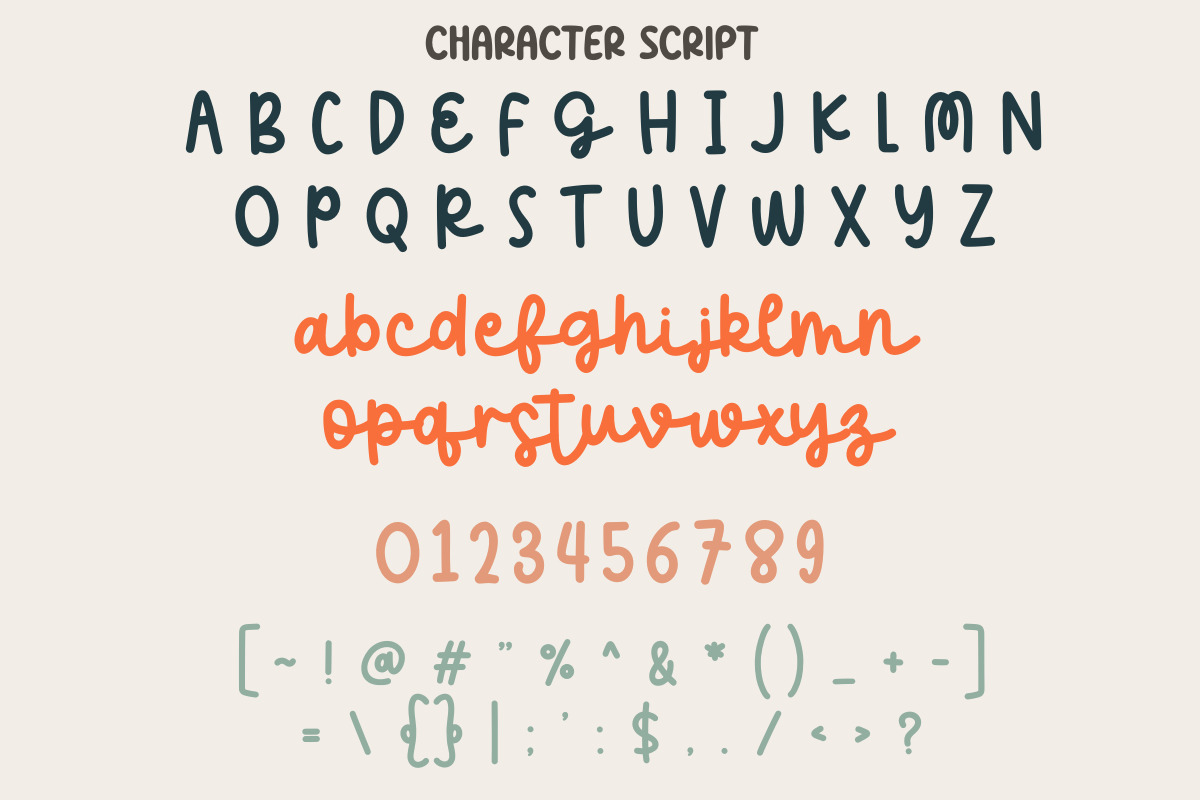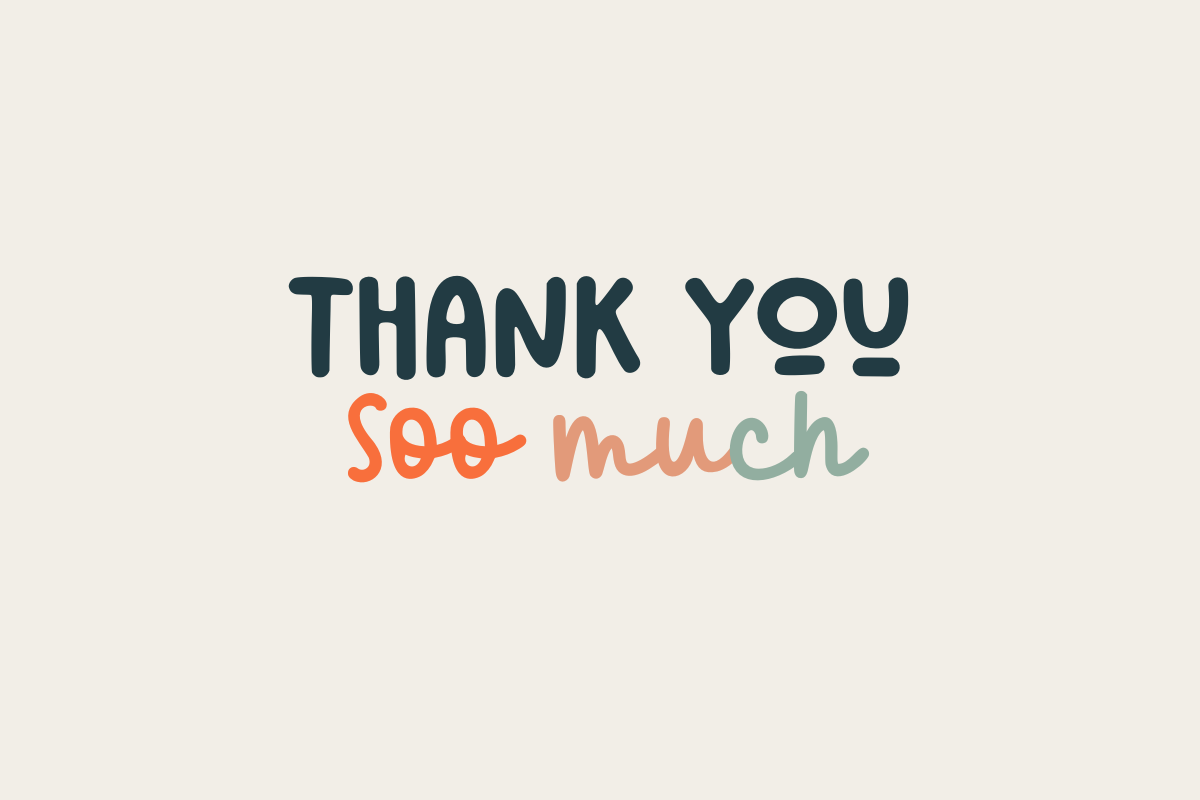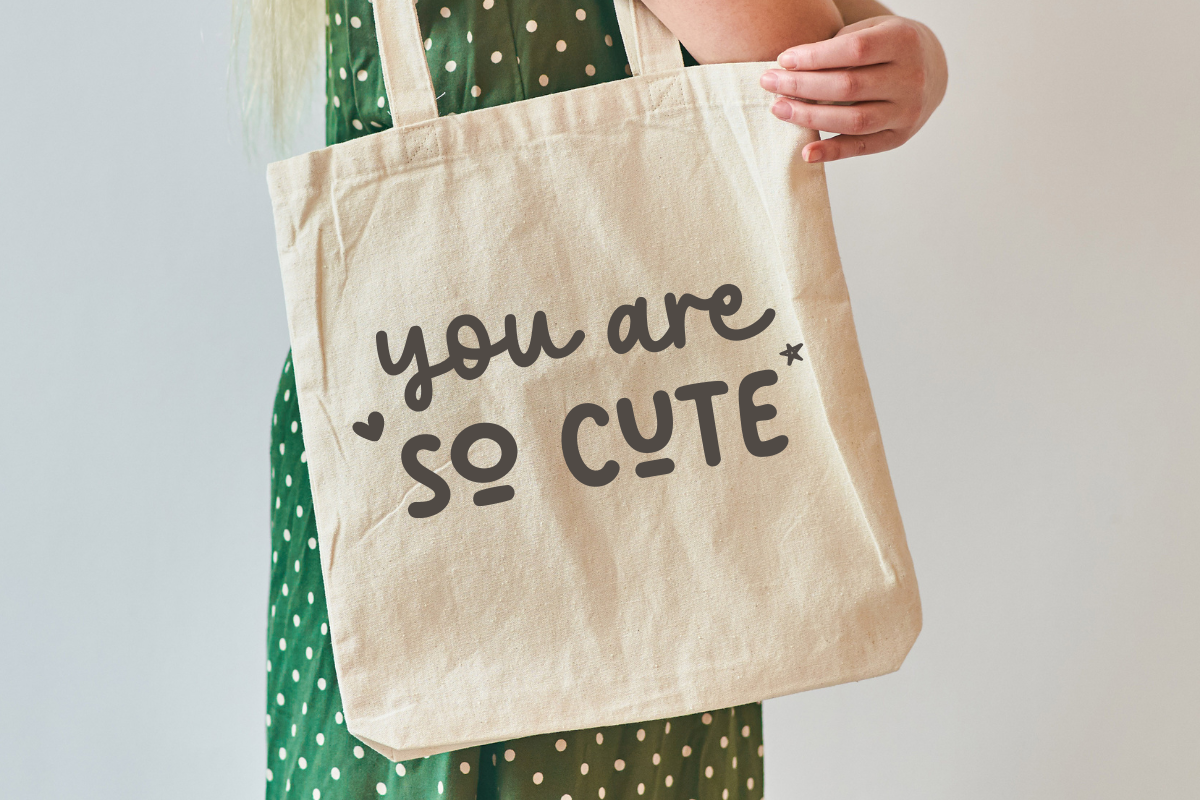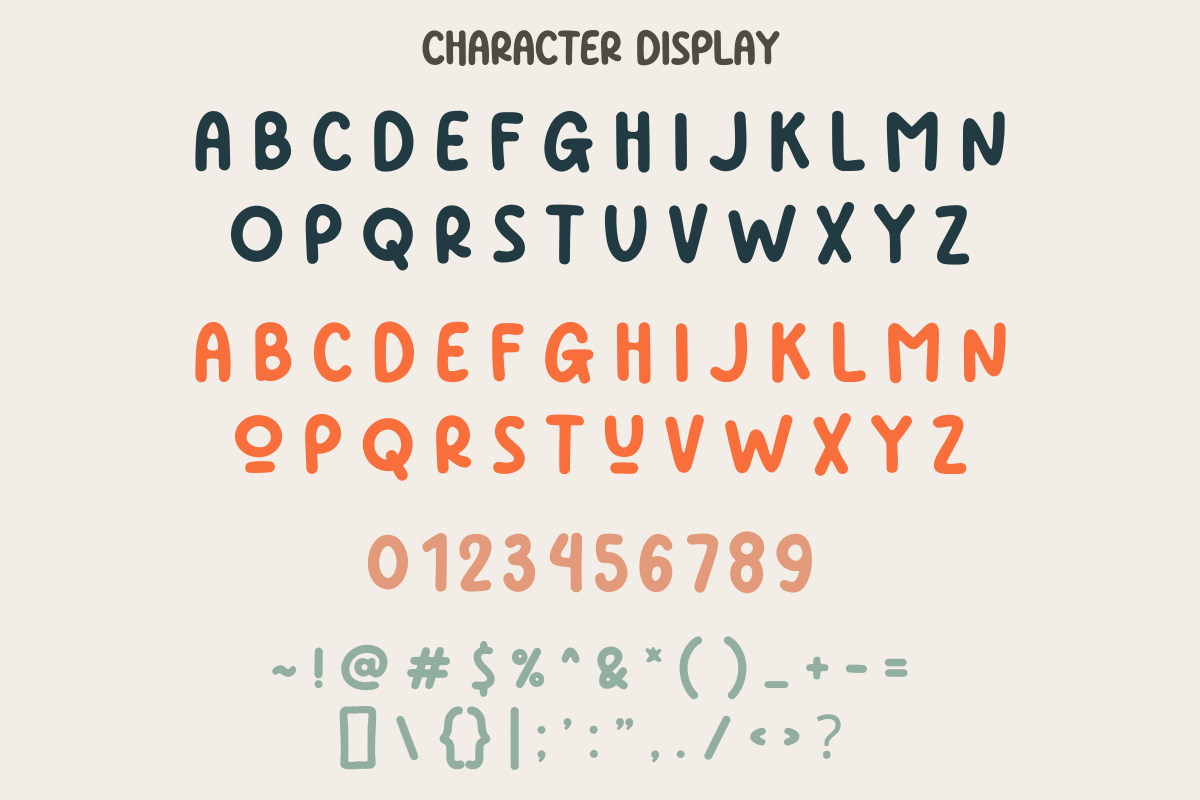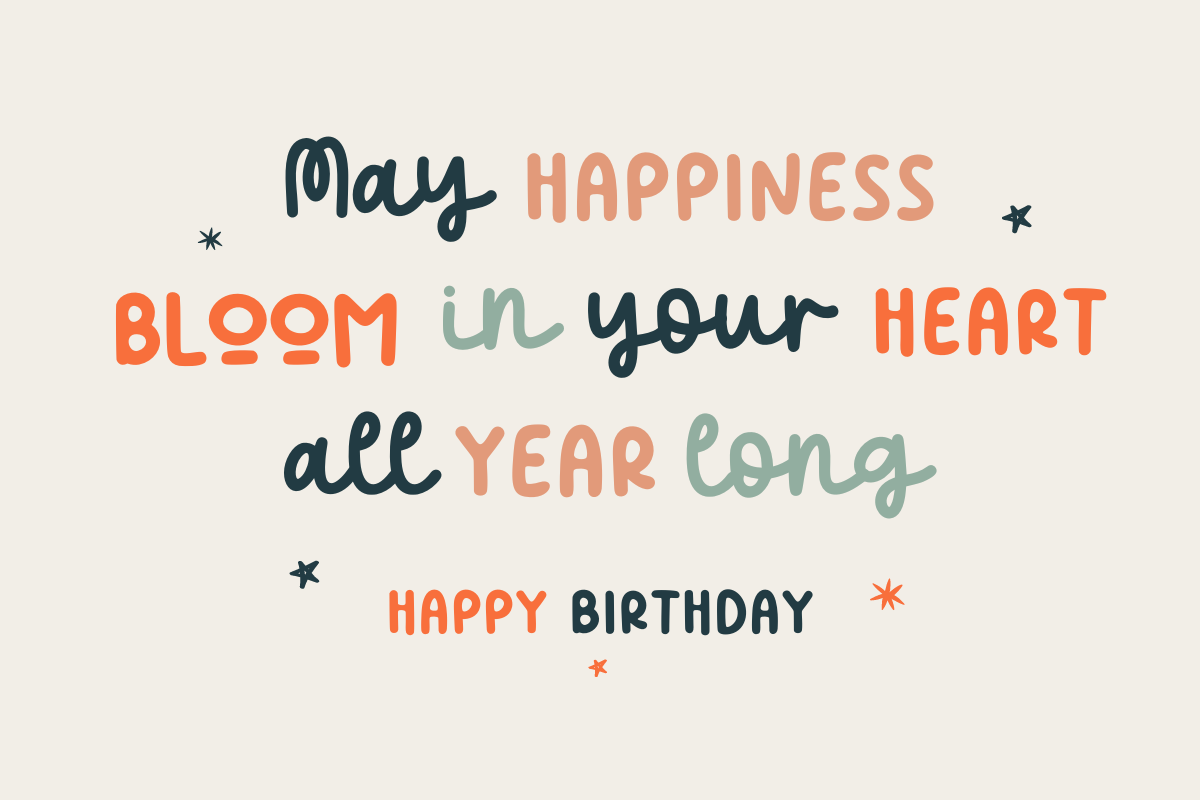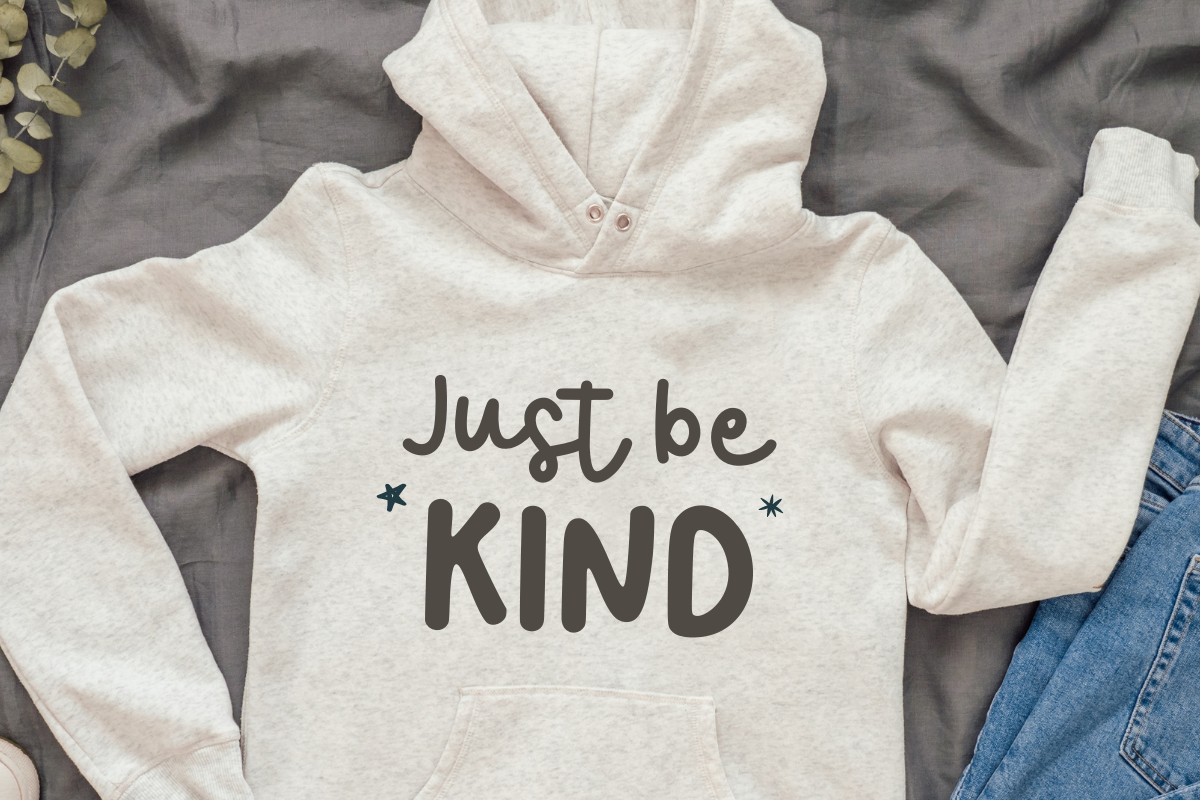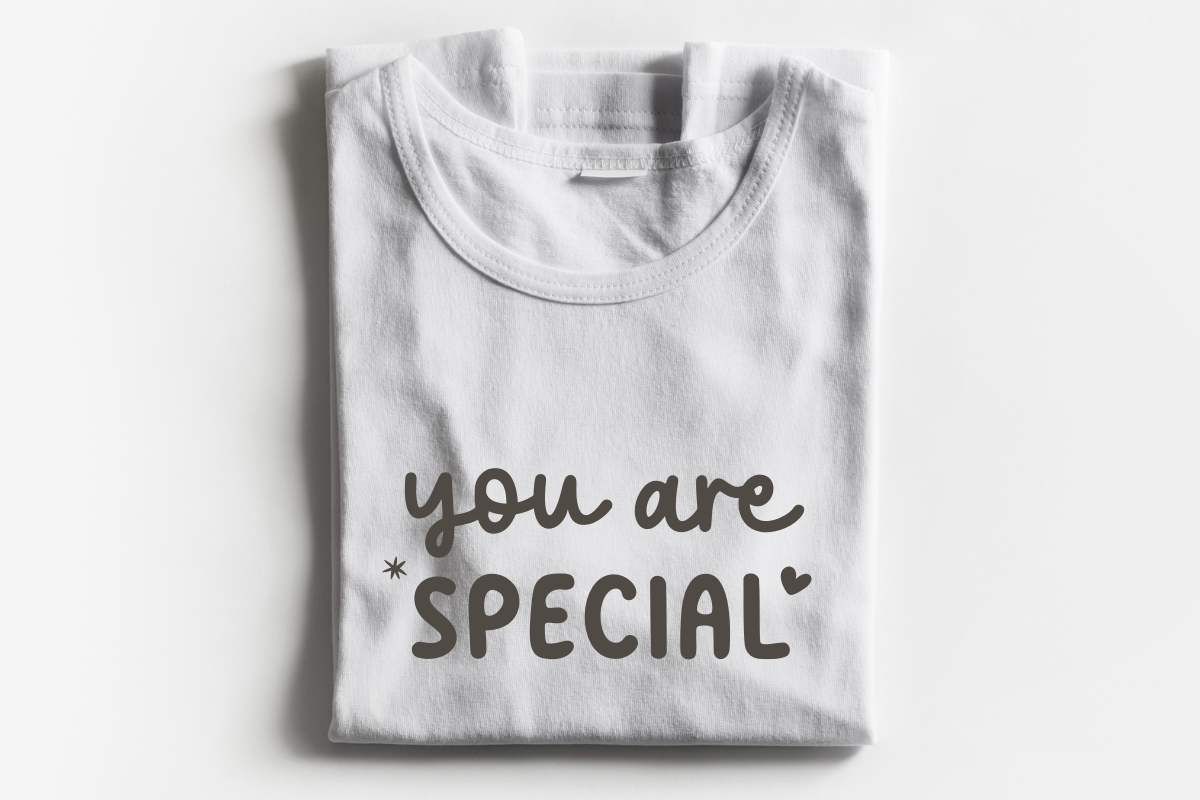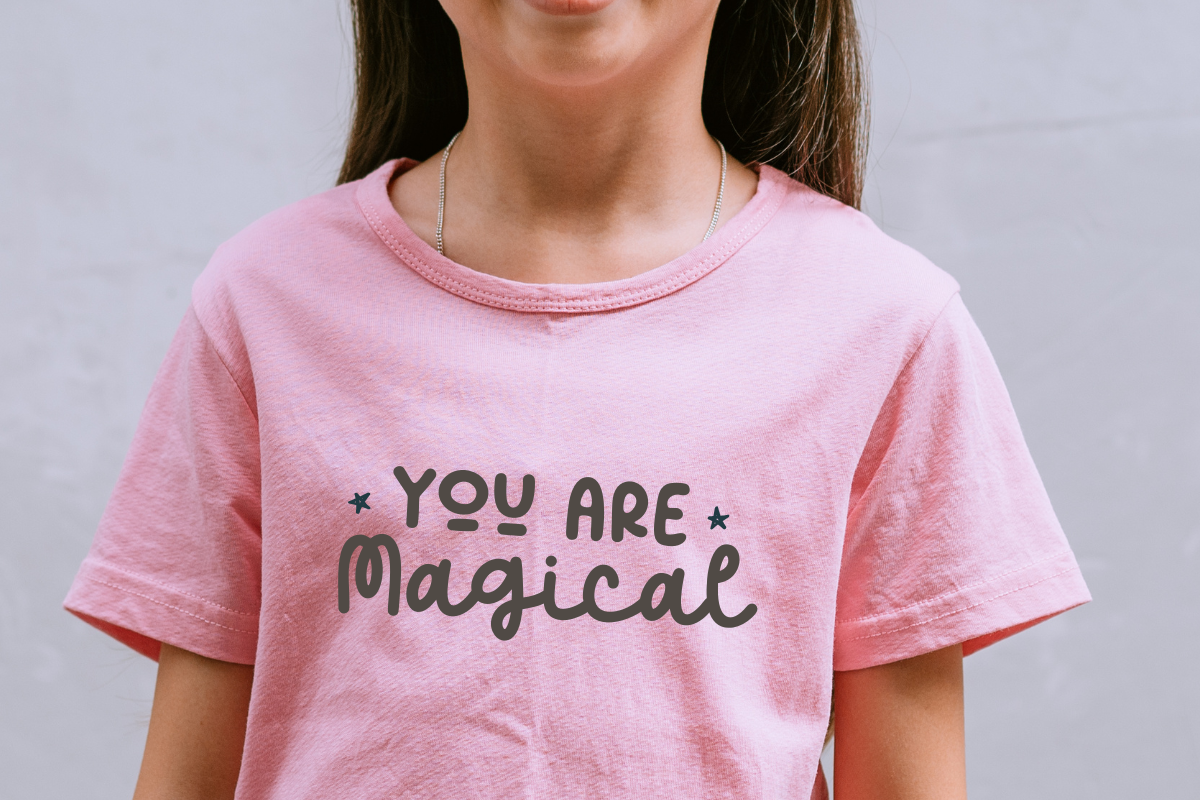
Kinder Someone
Kinder Someone a delightful duo of handwritten fonts consisting of both display and script characters. Exemplifying a unique blend of cuteness and beauty, these fonts breathe life into your crafts, adding a touch of personalization to t-shirts and making birthdays, weddings, and special events all the more memorable. Their versatile appeal beautifully punctuates packaging, lends a playful vibe to hoodies and mugs, and elegantly scripts out quotes. This alluring pair of fonts is a perfect match for greeting cards, infusing them with an intimate handwritten touch. Expect your gifts to stand out, as Kinder Someone makes your creativity shine.